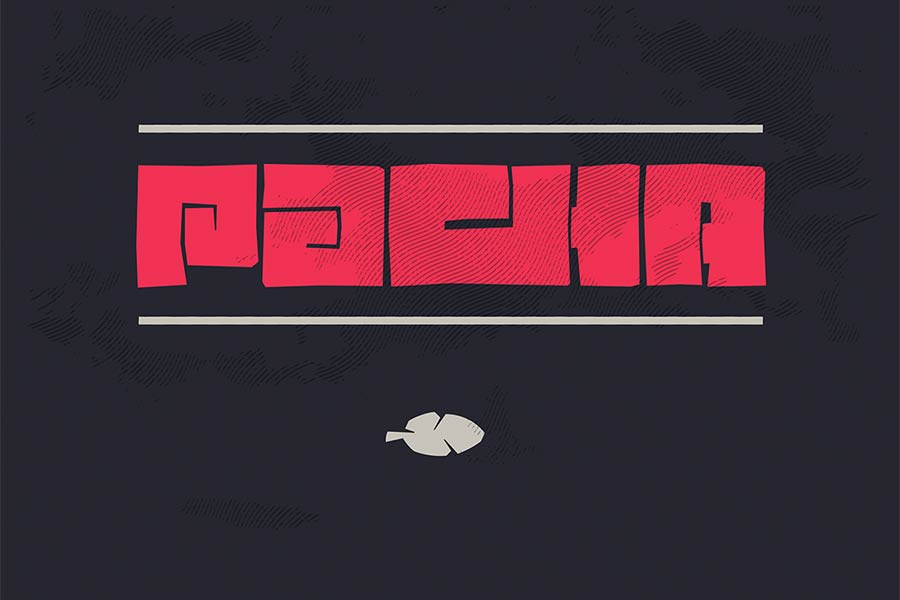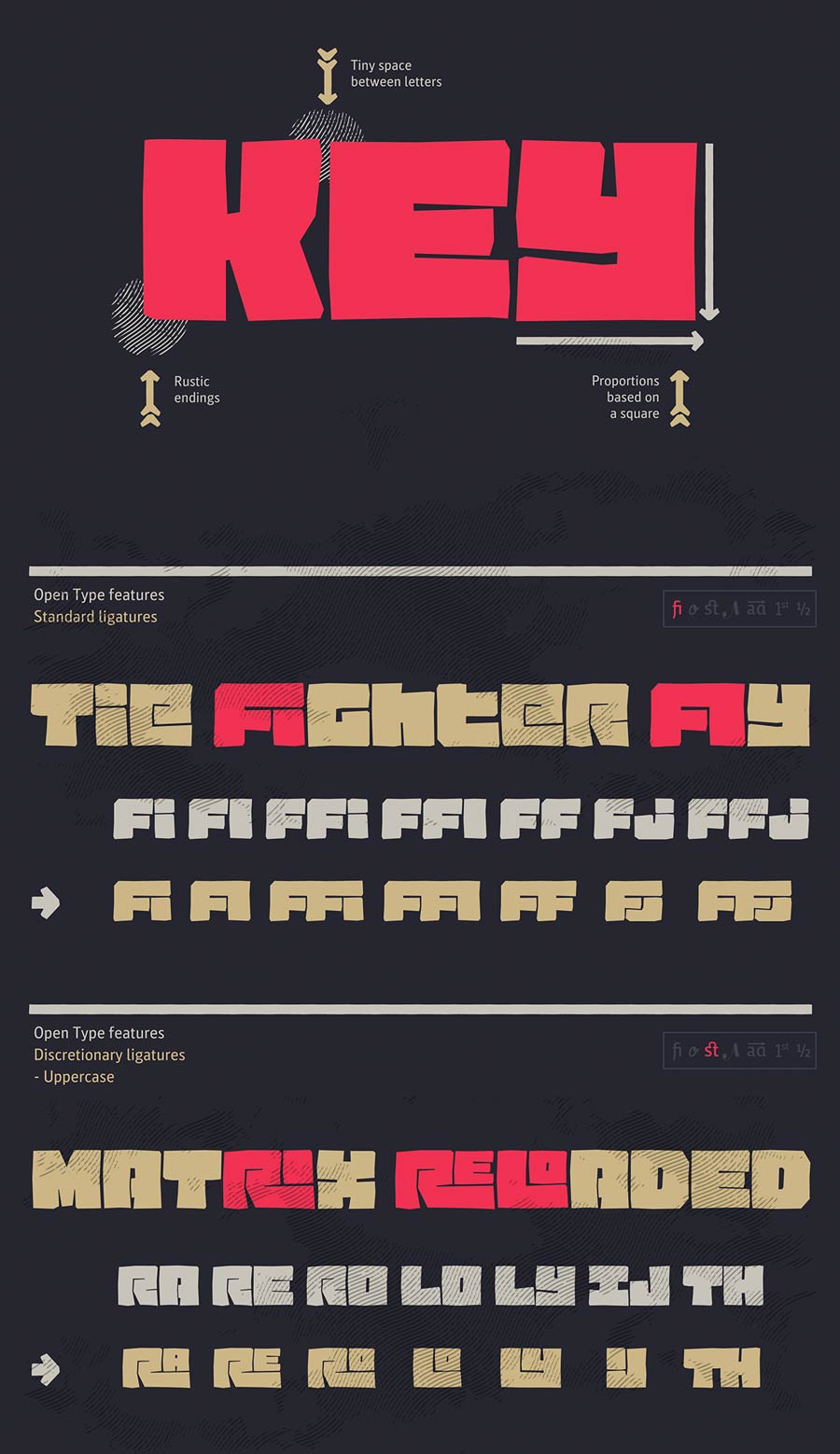
Pacha is a rustic and ethnical free font that the design was inspired by the ancient cultures of Latin America. The characters were designed with proportions based on a square shapes. It’s tight tracking between the characters making it look like a solid row of blocks. Pacha also comes with rich open type features, patterns, arrows and more! This font was intended for big displays, decorative designs and not recommended for type for reading.